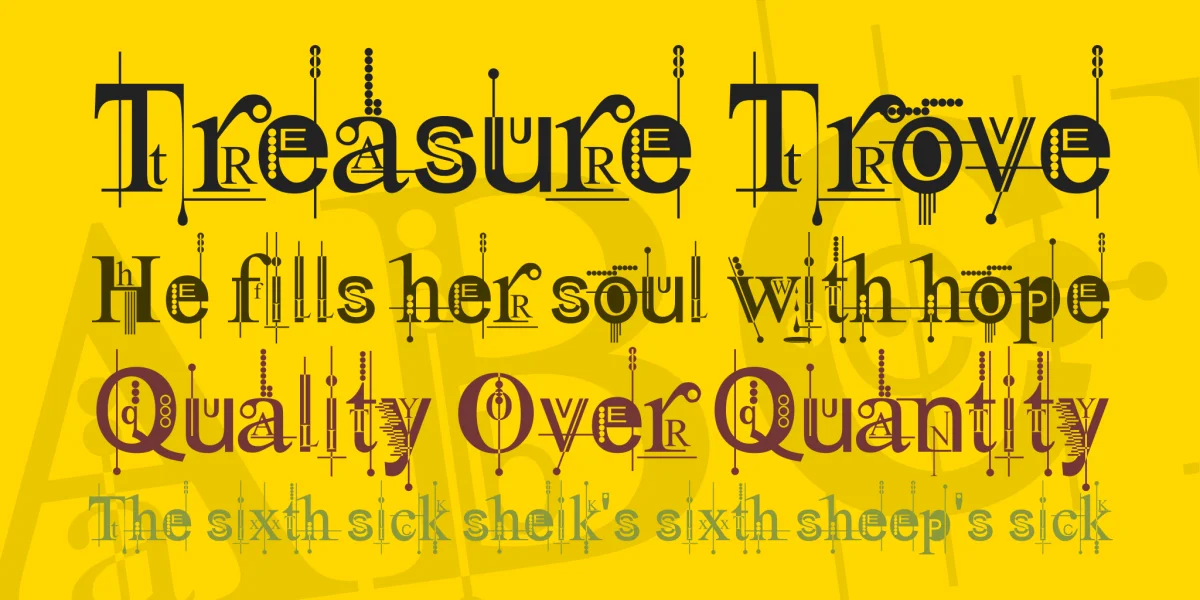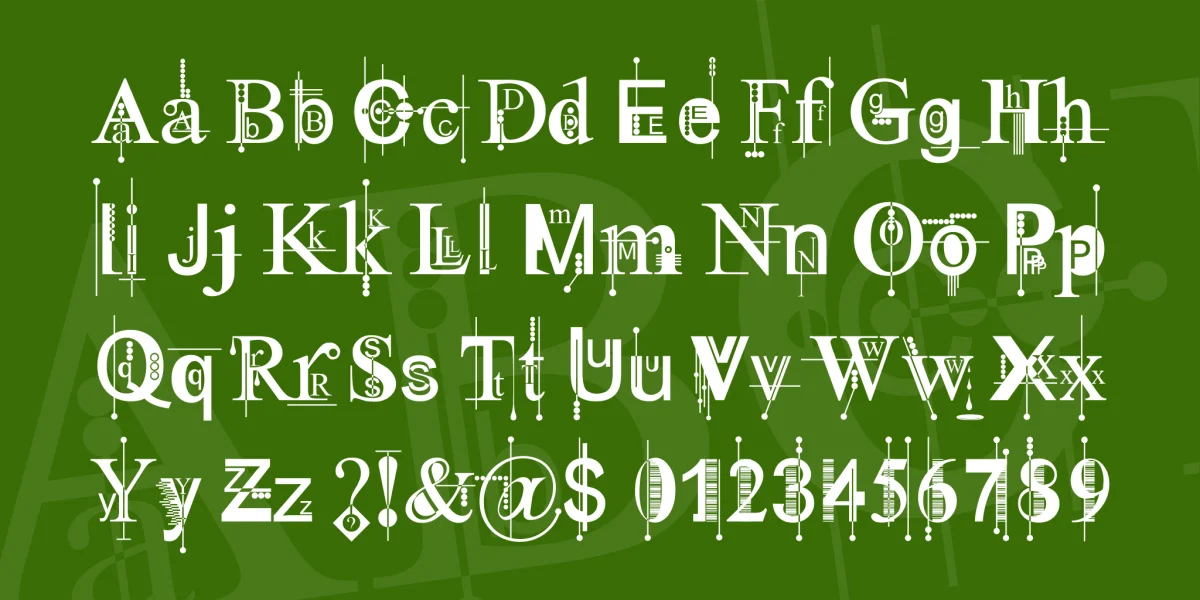
A change is as good as a rest - fed up with detailed tweaking of foundation (coming soon) I loathe Arial and Times for their ubiquity and multiple lazy re-use...